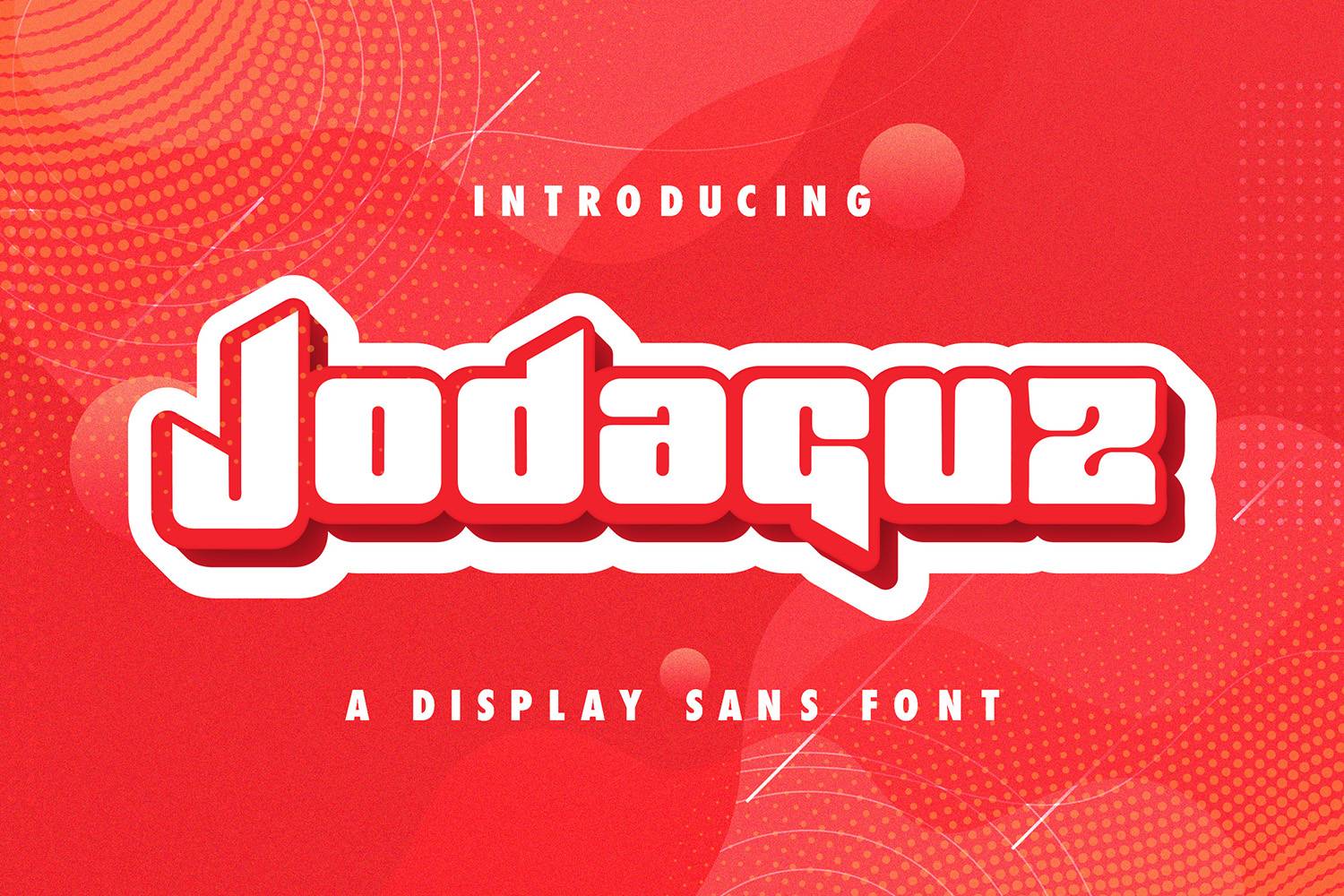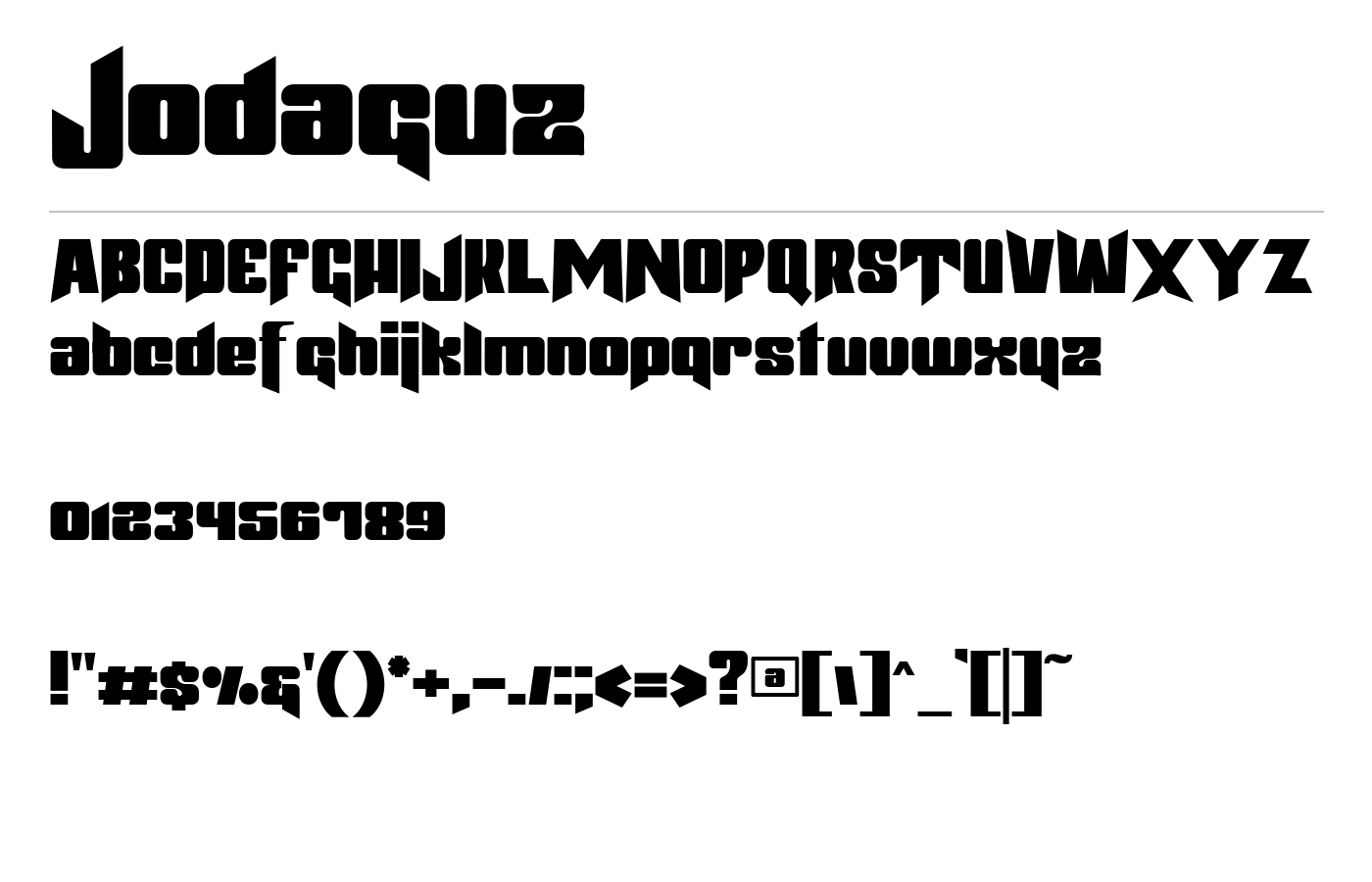
Jodaguz is a bold, condensed display font with a strong geometric structure and sharp edges, giving it a striking, modern appearance. Its unique angular details and compact letterforms create a sense of power and intensity, making it ideal for eye-catching headlines, logos, and branding that need a distinctive, edgy personality. This font works well in projects that seek to convey strength and innovation while standing out with a bold visual impact.
Jodaguz Font
About Jodaguz Font
| Font family | Jodaguz Font |
| Designer | Stringlabs |